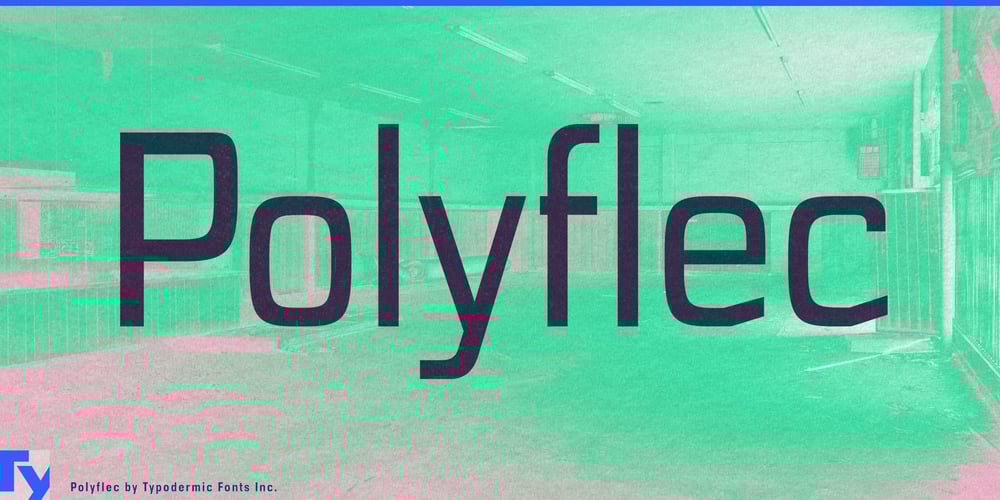
Polyflec Font Family was designed by Ray Larabie and published by Typodermic. Polyflec contains 8 styles and family package options. Introducing Polyflec: the typographic embodiment of scientific precision and innovation. This is a catalyst for visual communication, as potent as any reagent in a chemist’s arsenal.Polyflec’s square letterforms and intricate angles are the molecular structure of modern design, each character a compound of form and function. Like the pristine white of a lab coat, Polyflec’s clean lines cut through visual noise with laser-like focus, demanding attention in any display context. Imagine your headlines under the microscope of public scrutiny. Polyflec’s four weights—from the gossamer-thin to the boldly concentrated—allow you to calibrate your message with the accuracy of a mass spectrometer. Its italic variants tilt your text at precisely the right angle, like a perfectly aligned chromatography column.This typeface speaks the language of science across borders. From Afrikaans to Zulu, Polyflec’s extensive language support ensures your groundbreaking research reaches a global audience. It’s equally at home on cutting-edge medical equipment displays as it is splashed across conference posters, synthesizing information into visually striking compounds. Polyflec doesn’t just sit in your font library—it reacts. Use it for the periodic table of elements, and watch as it brings clarity to complexity. Deploy it in pharmaceutical packaging, and see how it communicates dosage information with crystal clarity. Let it headline your tech startup’s pitch deck, and observe as investors’ eyes light up like Bunsen burners.Choose Polyflec, and you’re not just selecting a typeface—you’re initiating a chain reaction of visual impact. It’s the perfect solution for designers who demand the same level of precision in their typography as scientists do in their experiments.